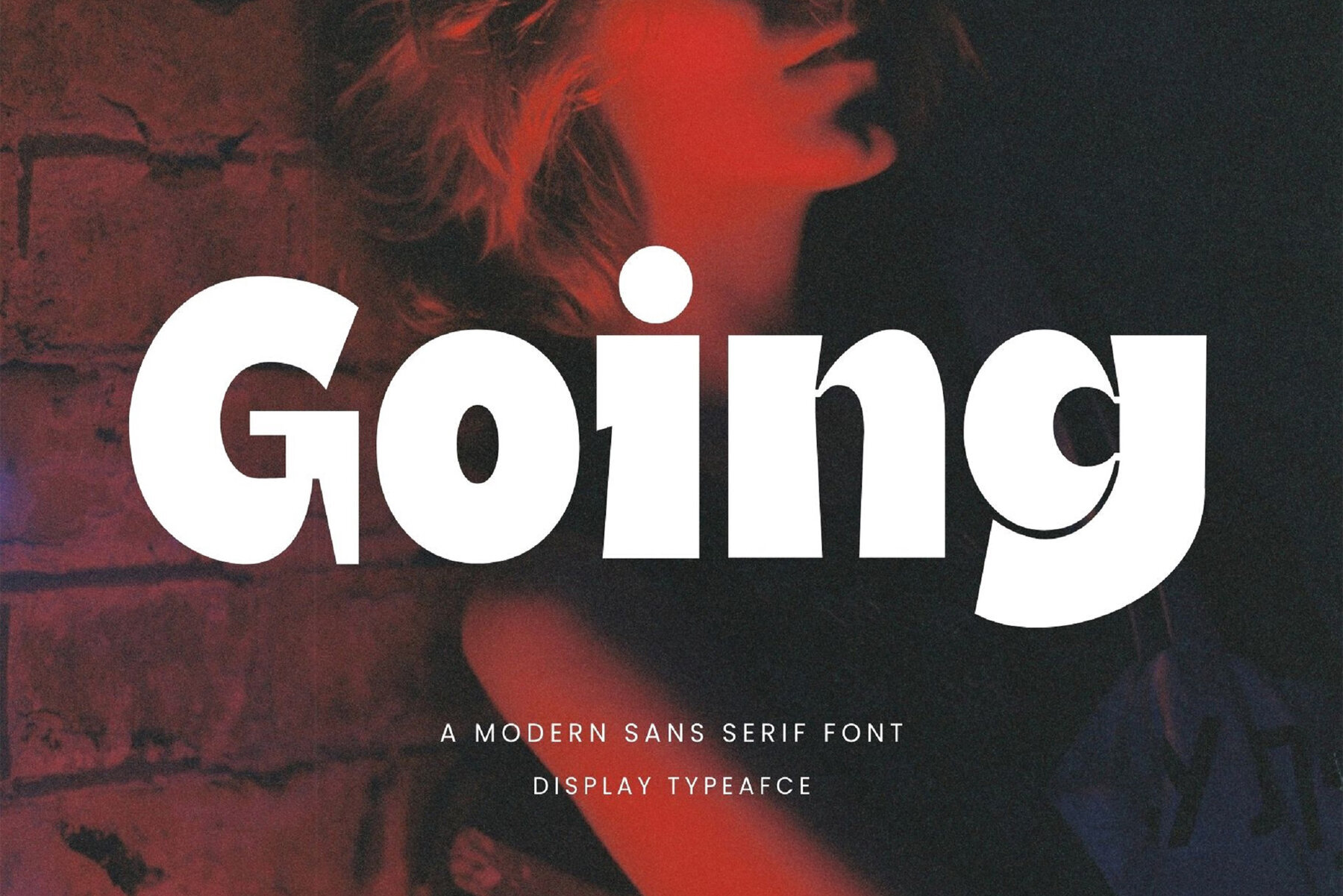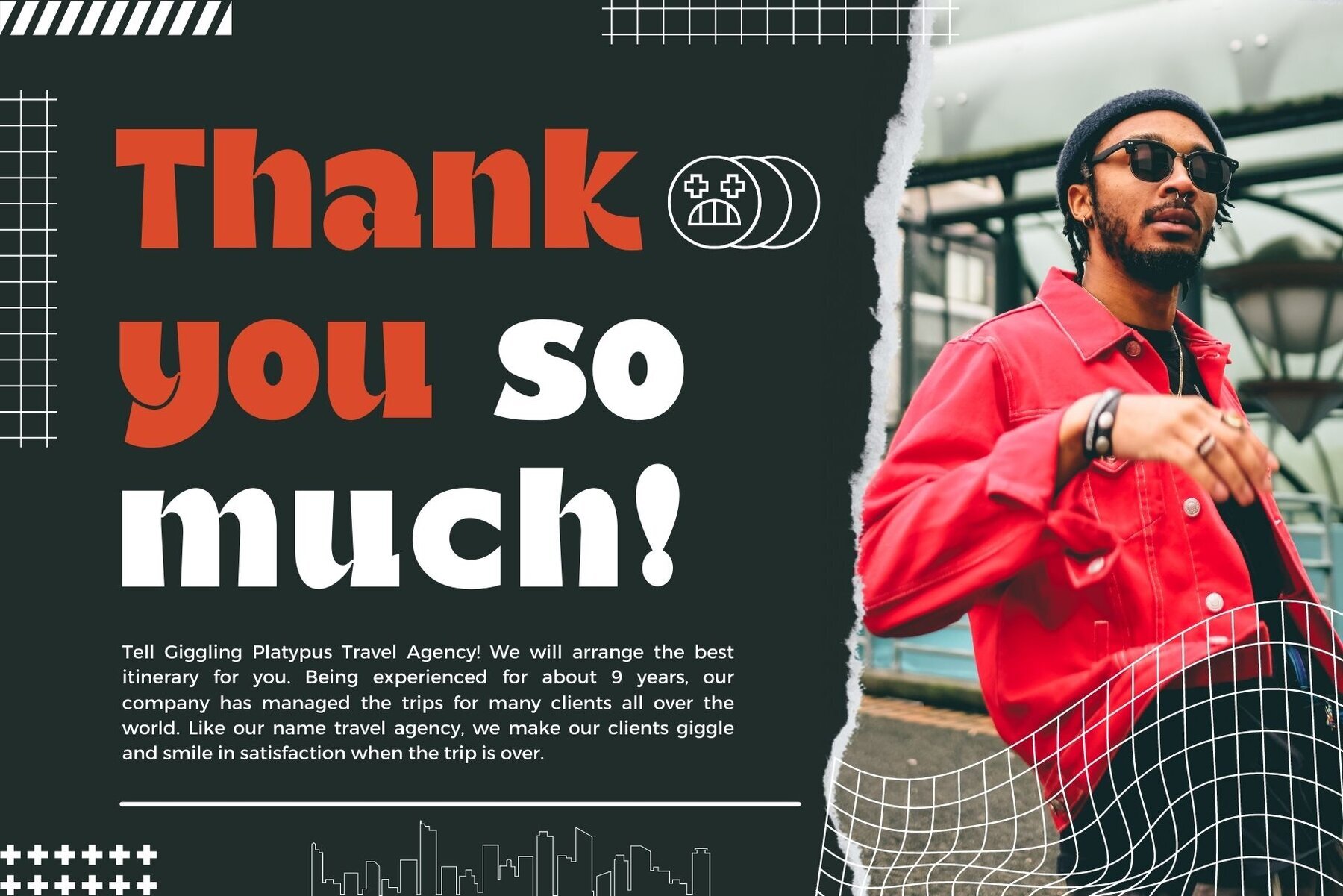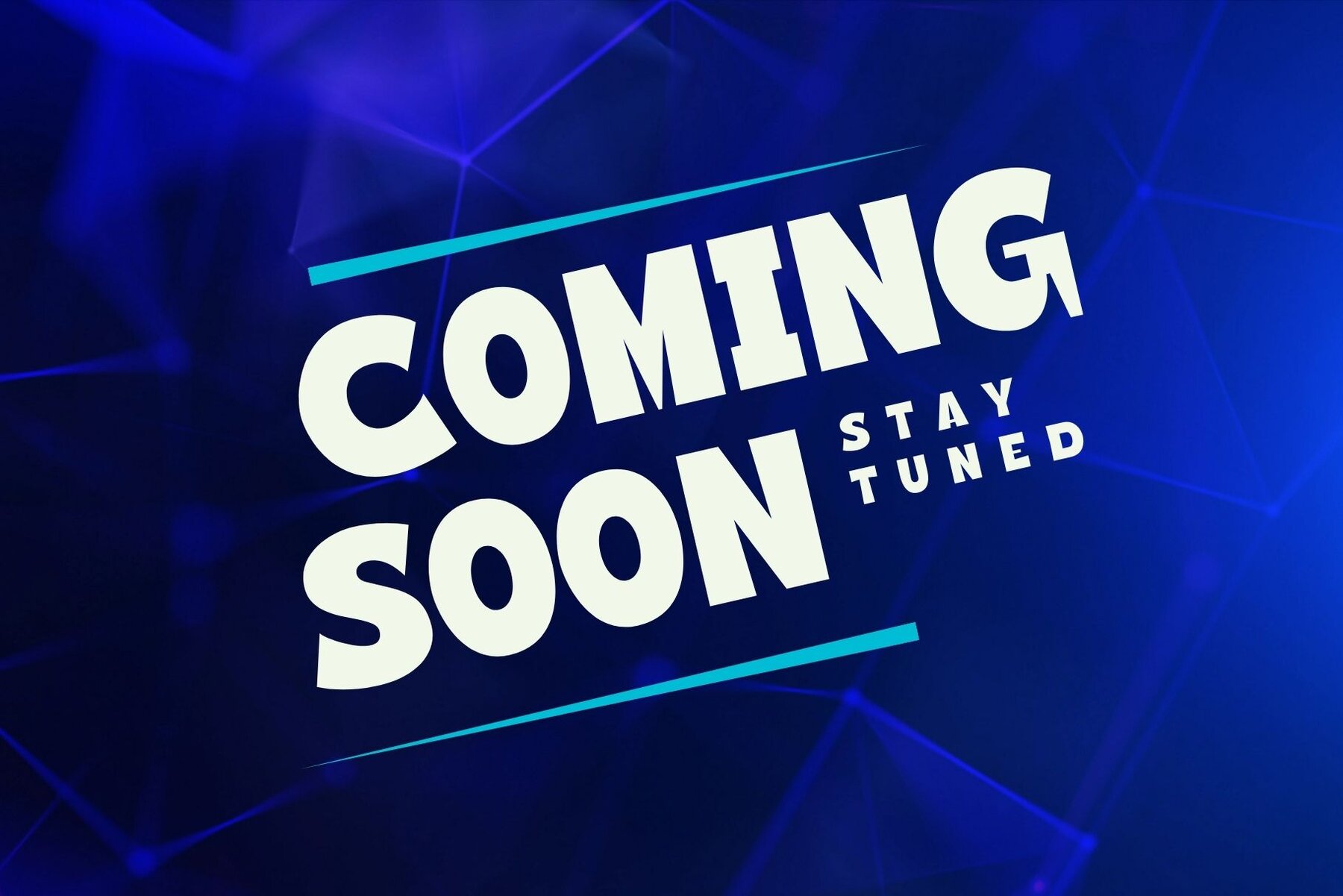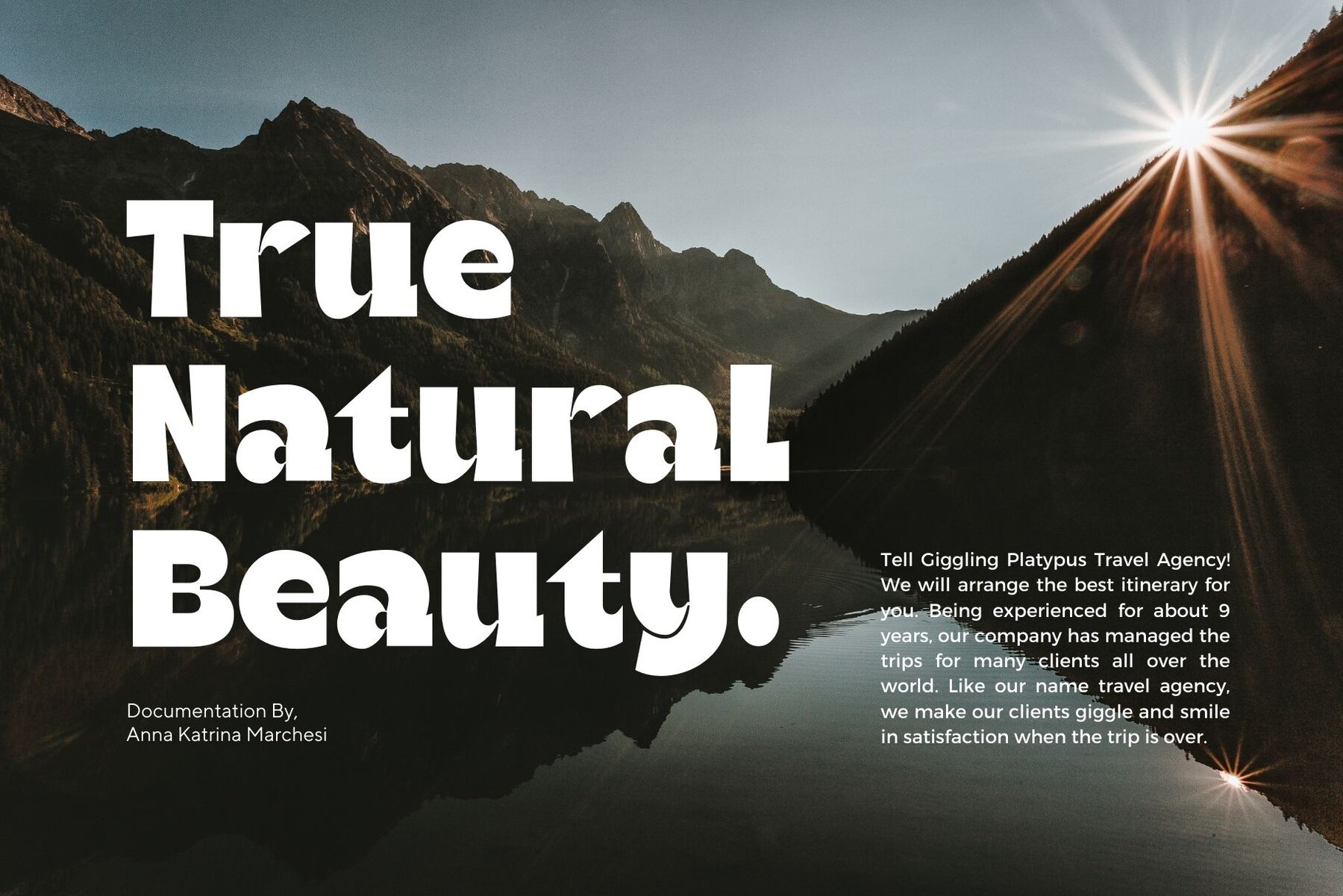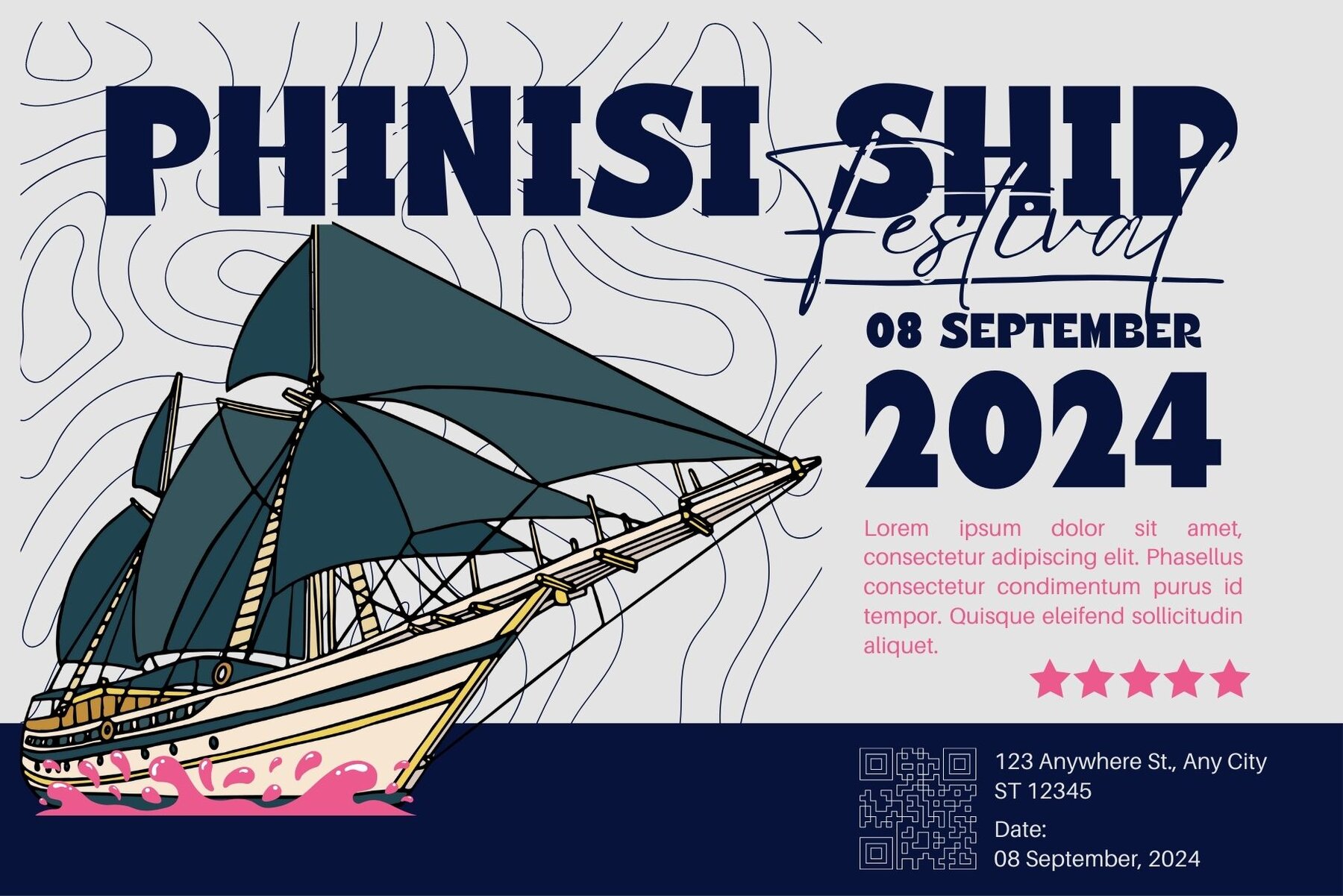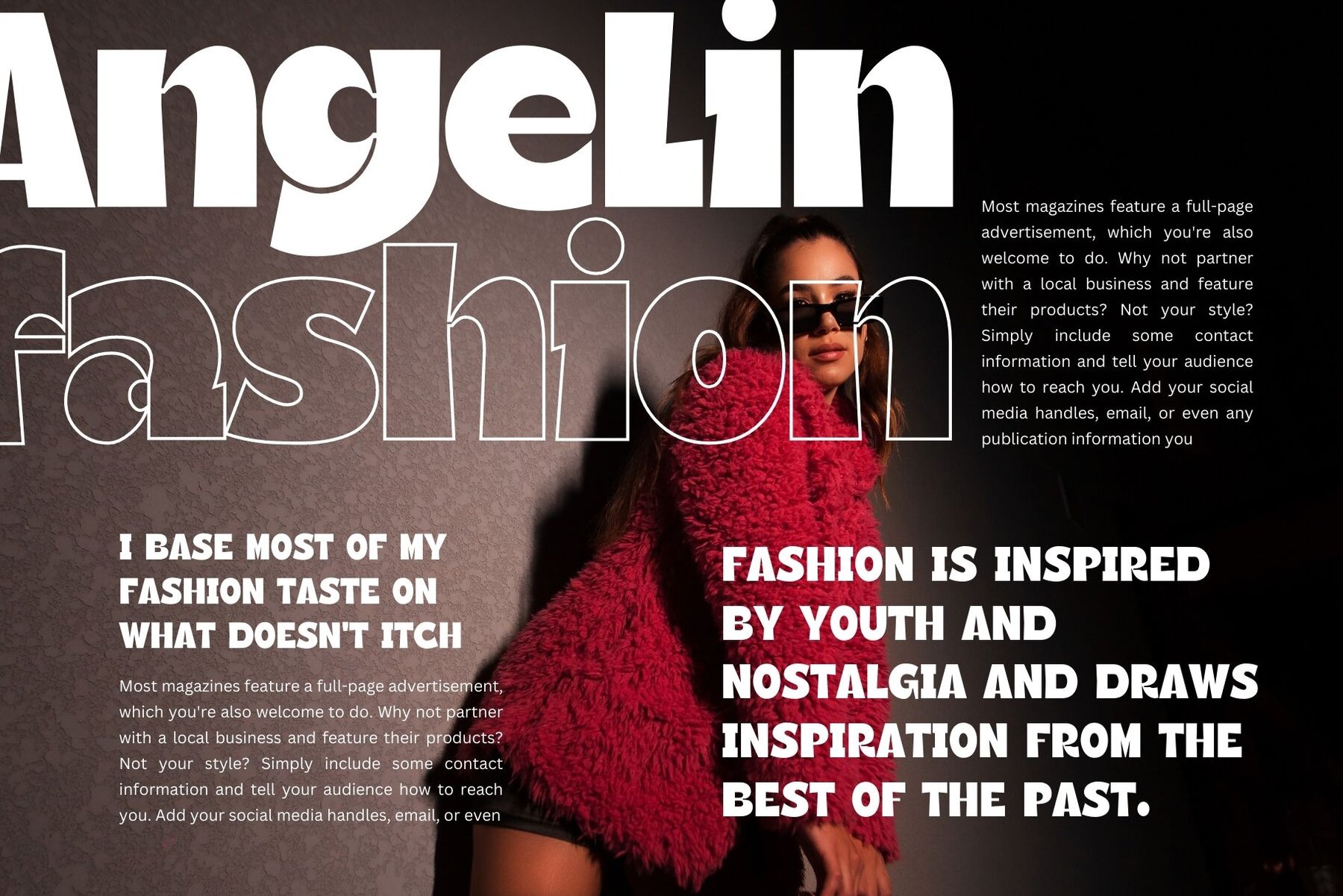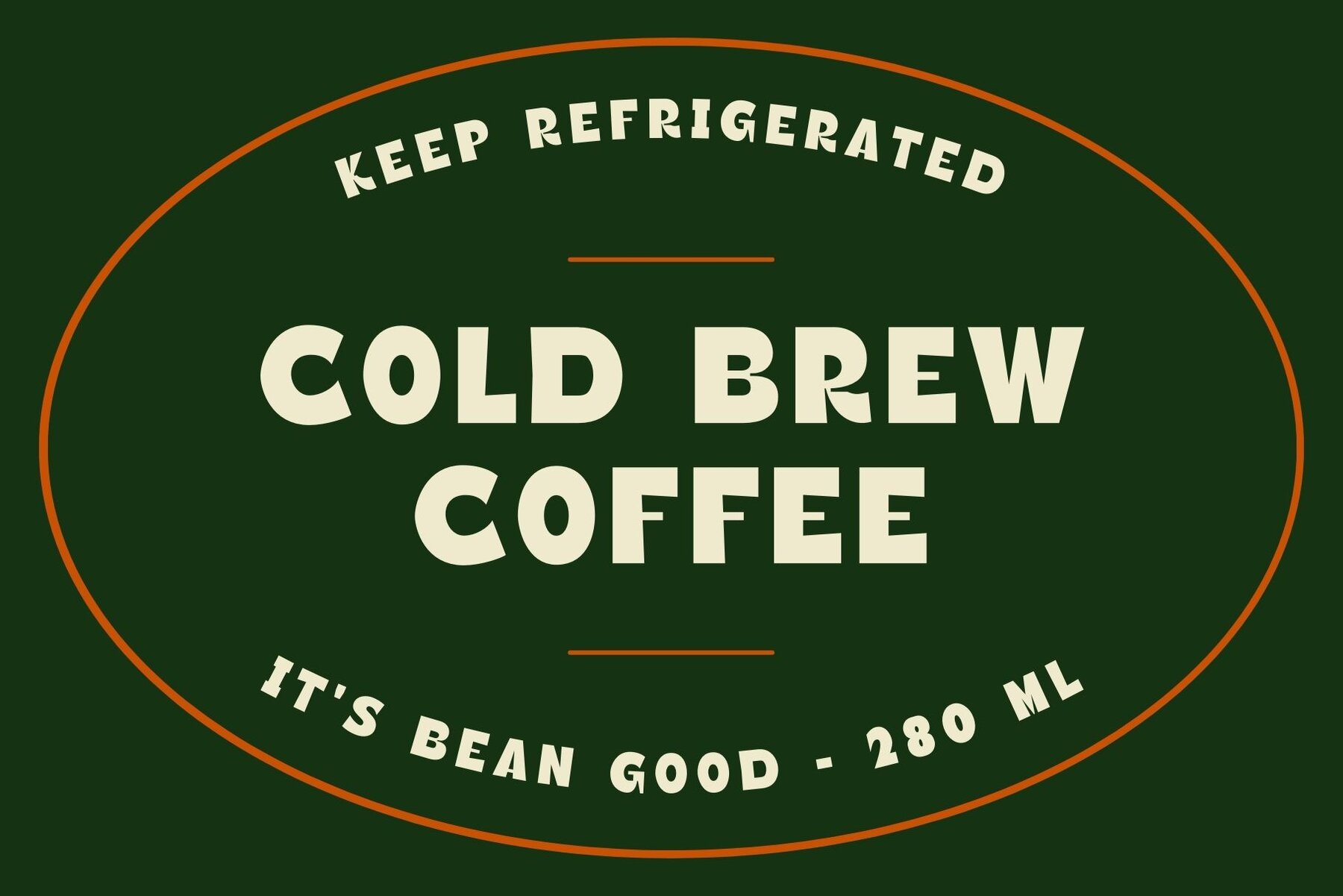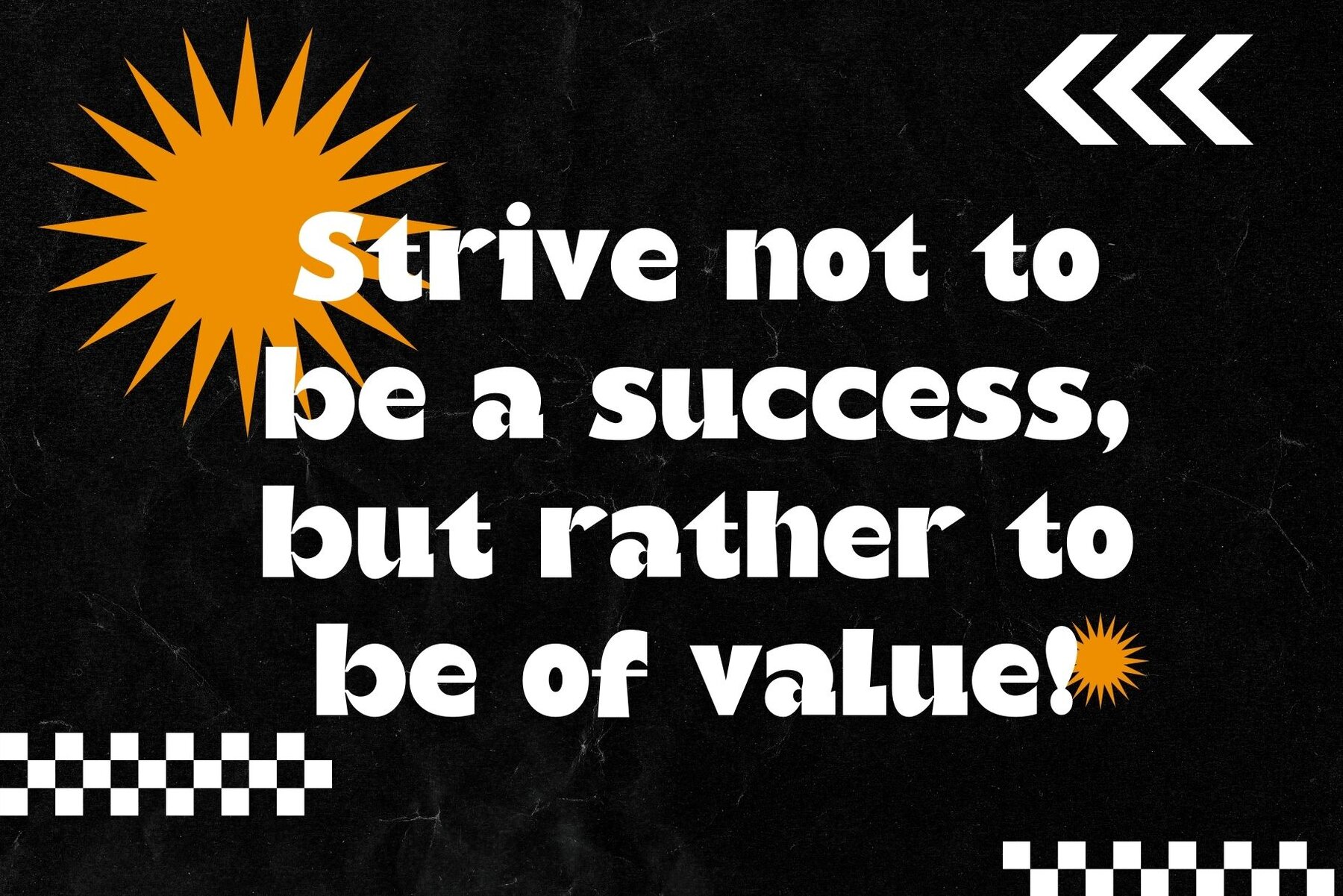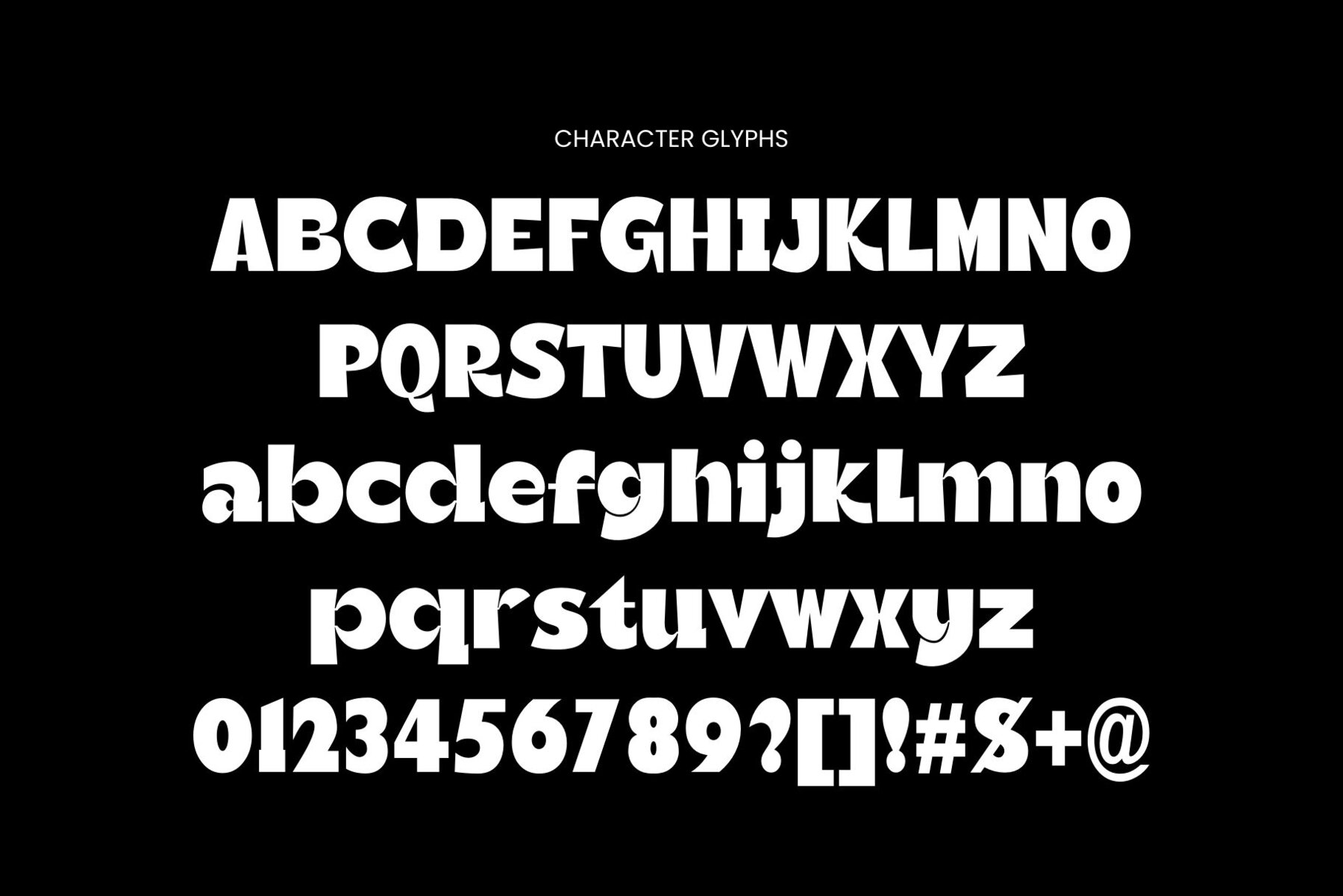
Going Font
Going Regular
Inspired by renowned minimalist logos, Graphicxell offers exceptional design versatility. Perfect for creating templates, brochures, videos, and more, this style elevates advertising, branding, logos, invitations, and elegant crafting in beauty design and beyond.Elegant Minimalist Design by Graphicxell